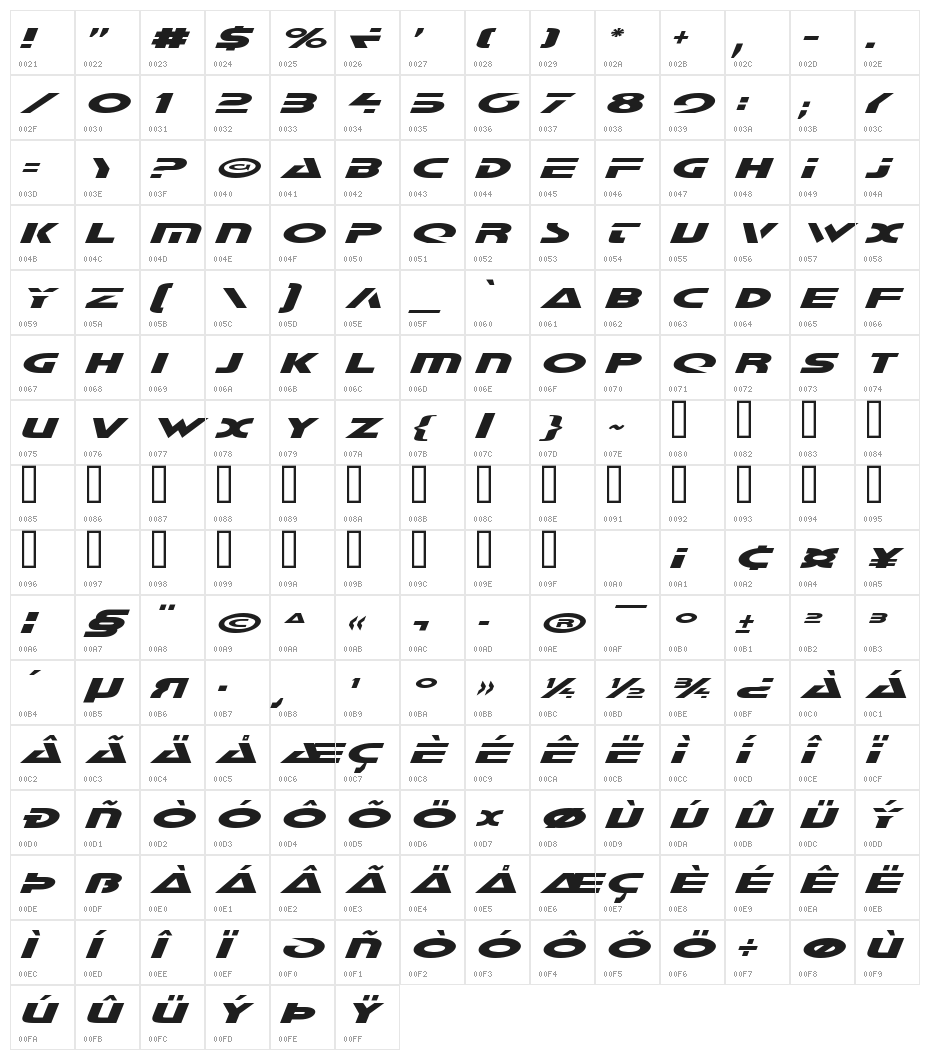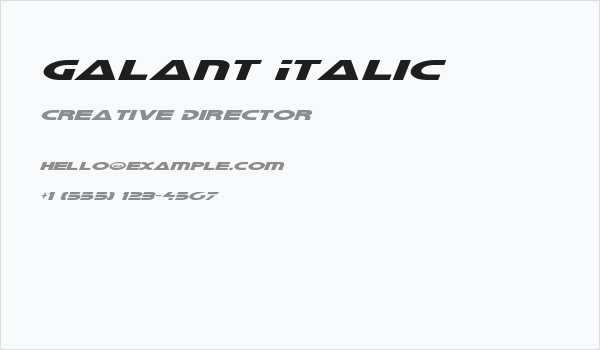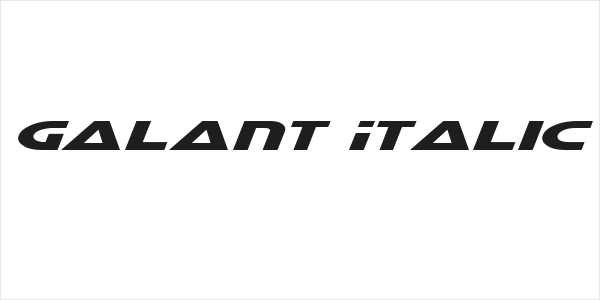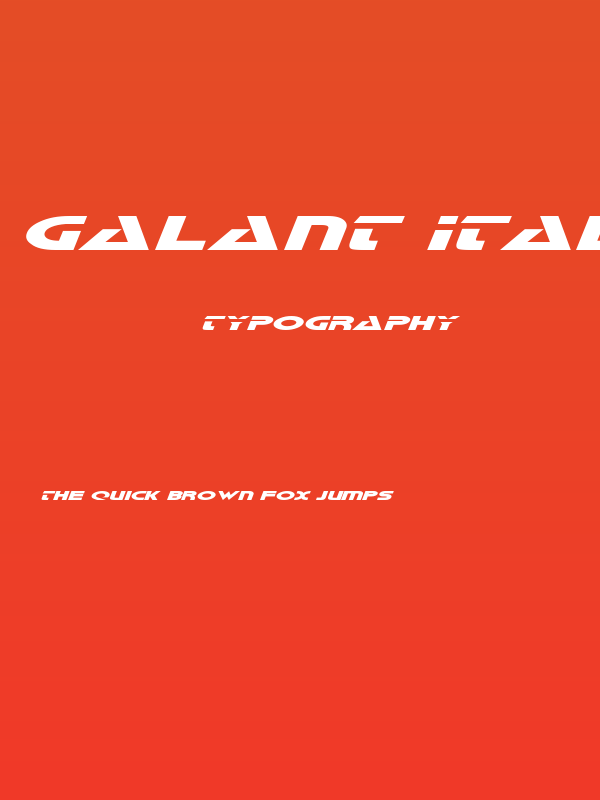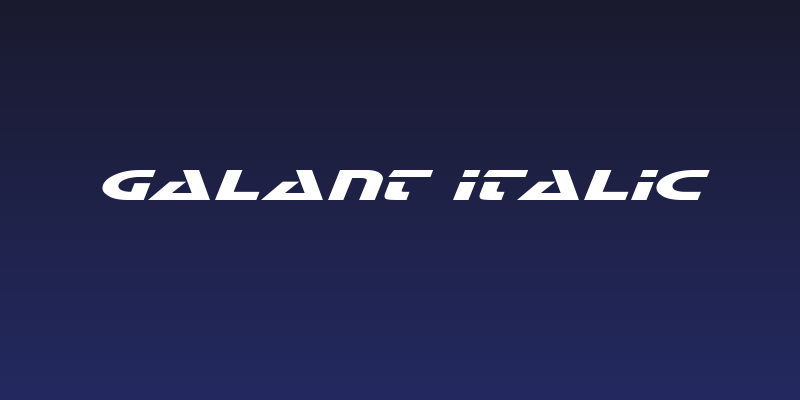
Galant Italic Font
Galant Italic Description
This font features a bold and dynamic italic style, characterized by sharp angles and a forward-leaning posture that conveys a sense of motion and speed. The uppercase letters are particularly striking, with a futuristic and aerodynamic design that makes them stand out. The lowercase letters maintain the same dynamic quality, ensuring consistency throughout. The numerals are equally bold, with a distinctive slant that complements the overall aesthetic. Special characters are designed with the same attention to detail, making them suitable for a variety of uses.
| Proposed Projects | Ideal for projects that require a modern and energetic look, such as sports branding, automotive advertising, or tech-related designs. |